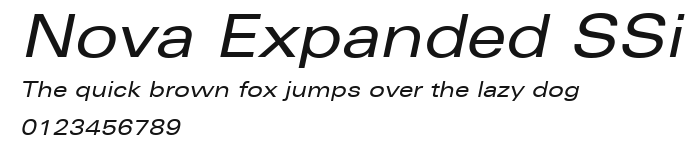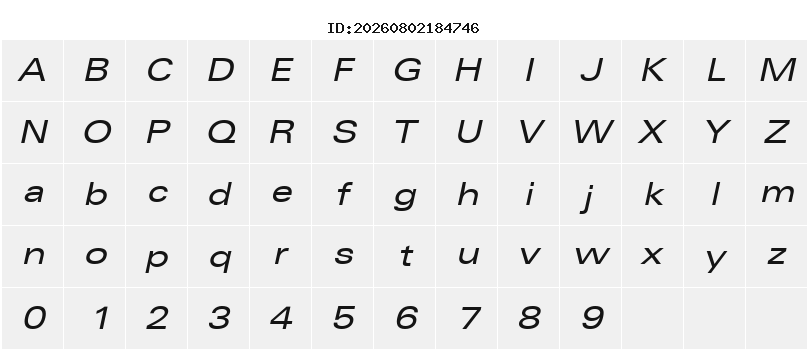
• Font Name: Nova Expanded SSi
• Font Style: Expanded Italic
• Full Font Name: Nova Expanded SSi Expanded Italic
About Nova Expanded SSi.ttf
Nova Expanded SSi.ttf is a modern, elegant sans-serif font designed for ultimate readability and visual harmony. Perfect for branding, headlines, web design, and print materials.